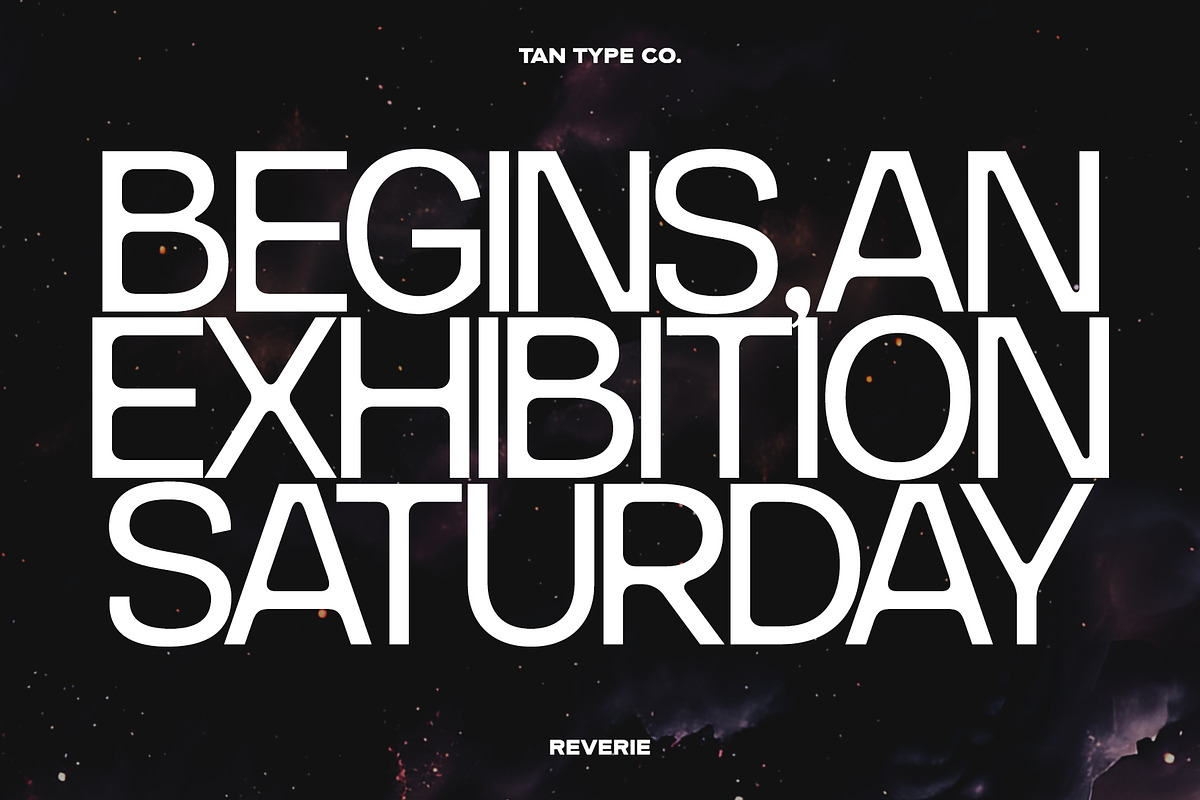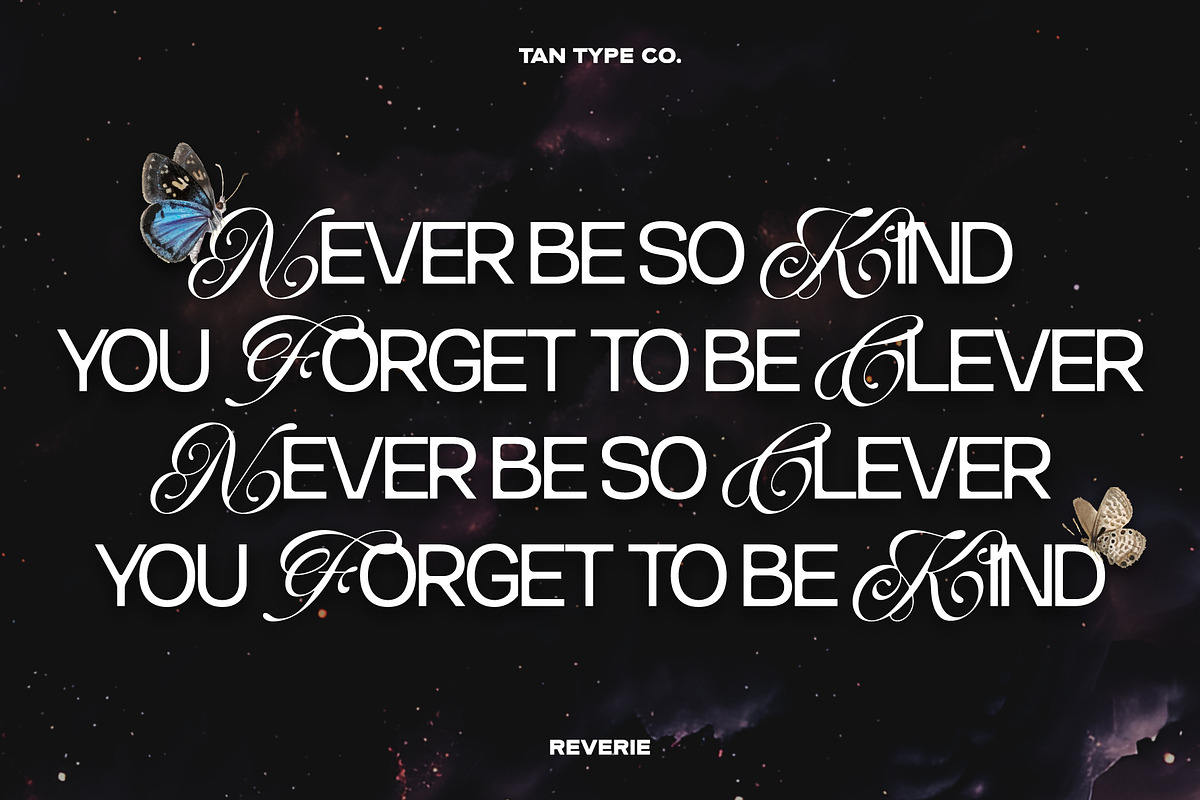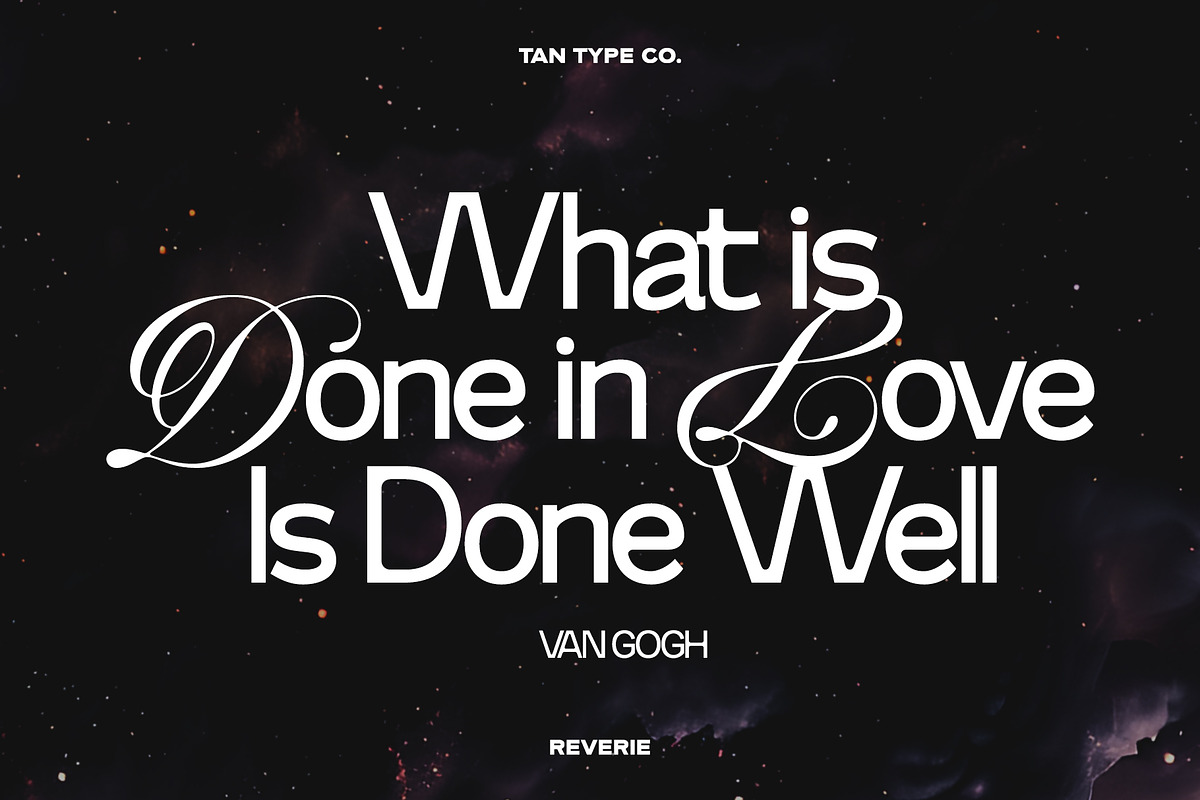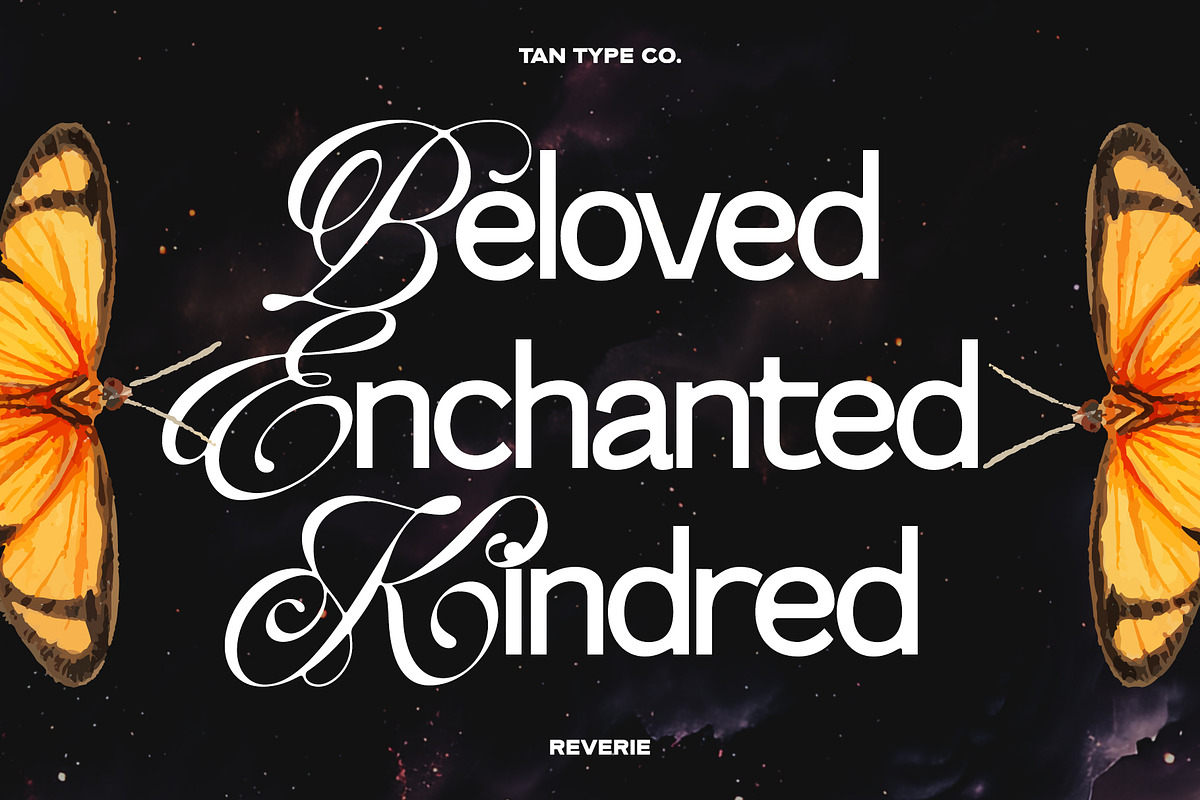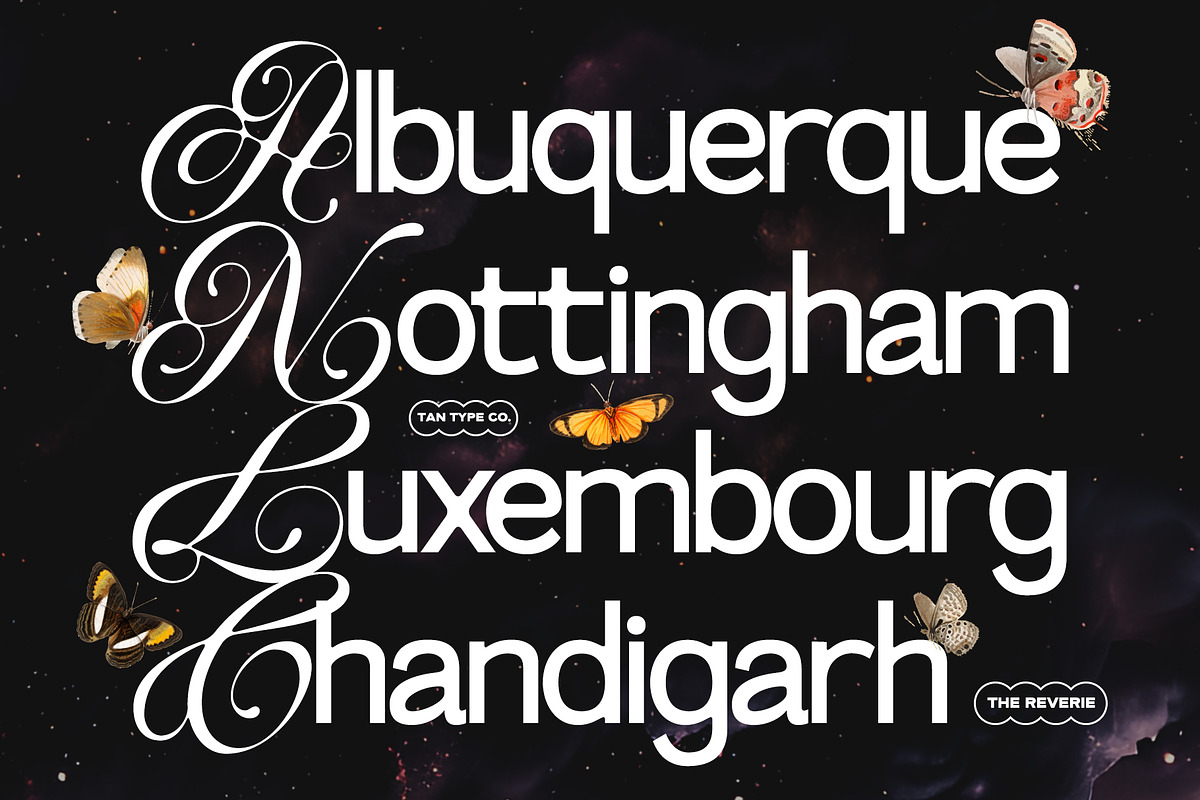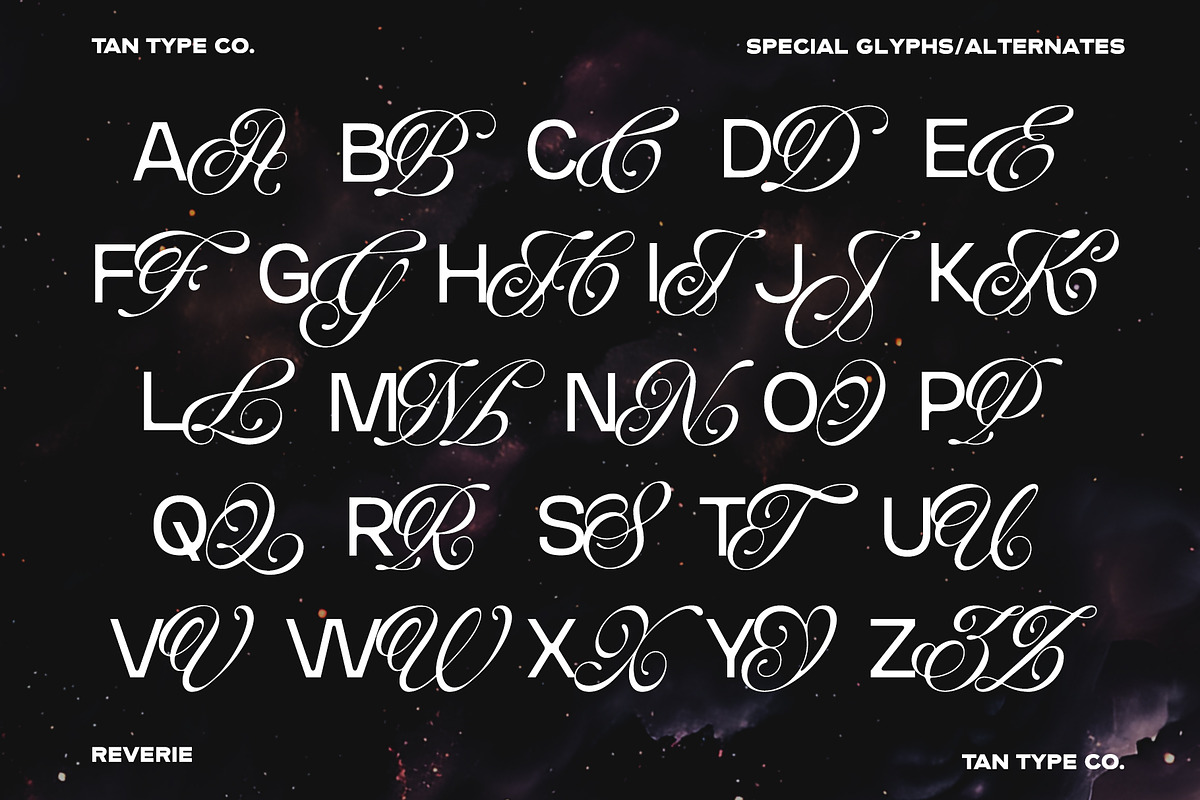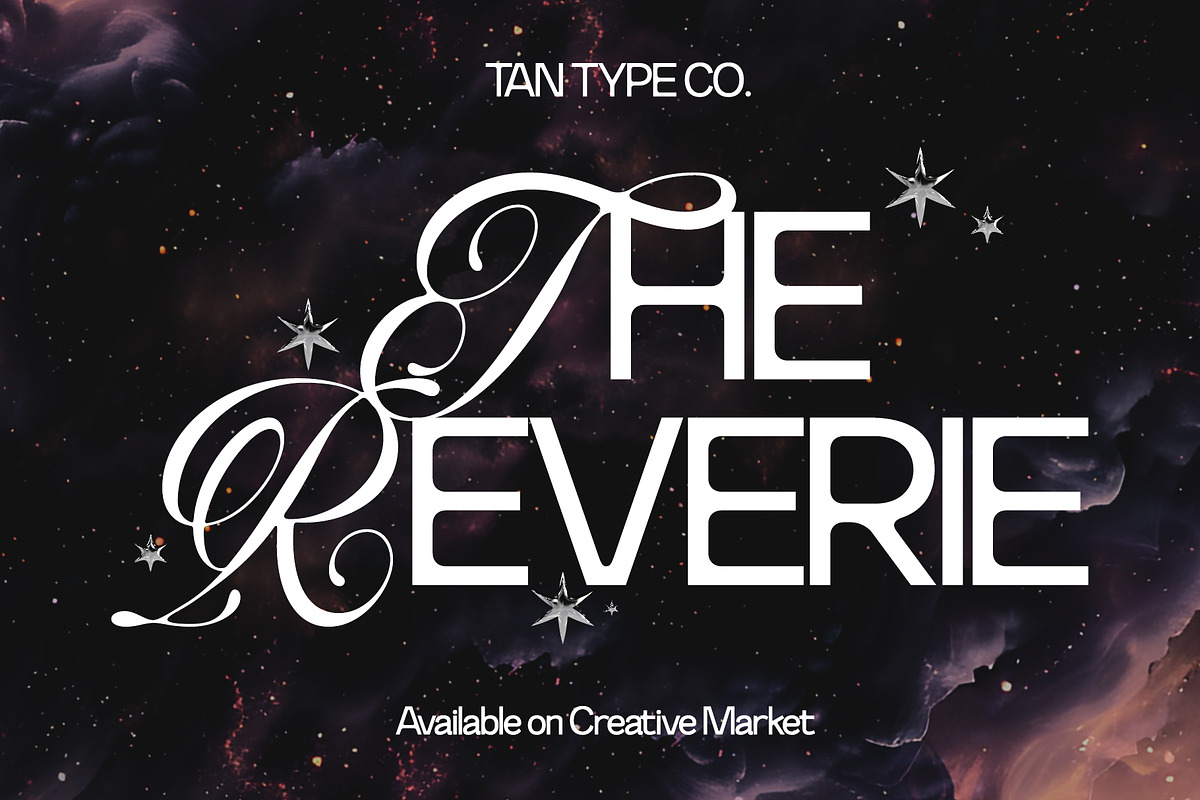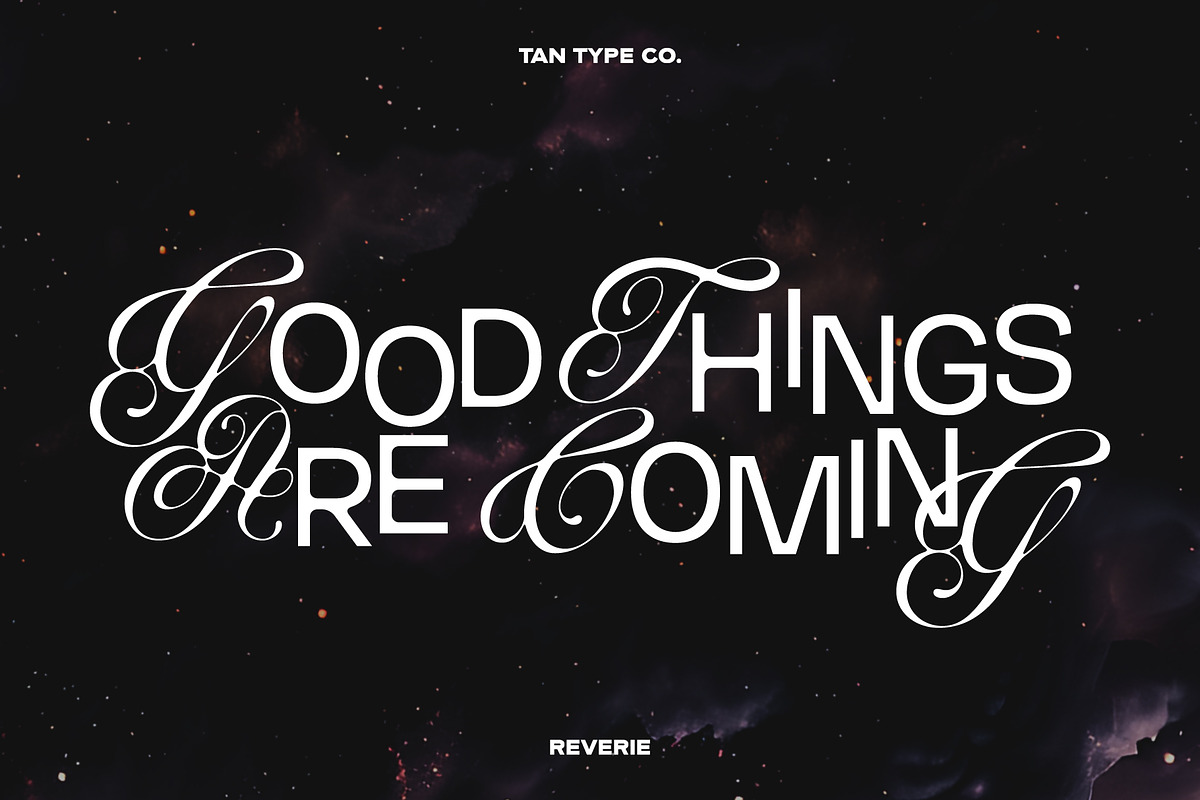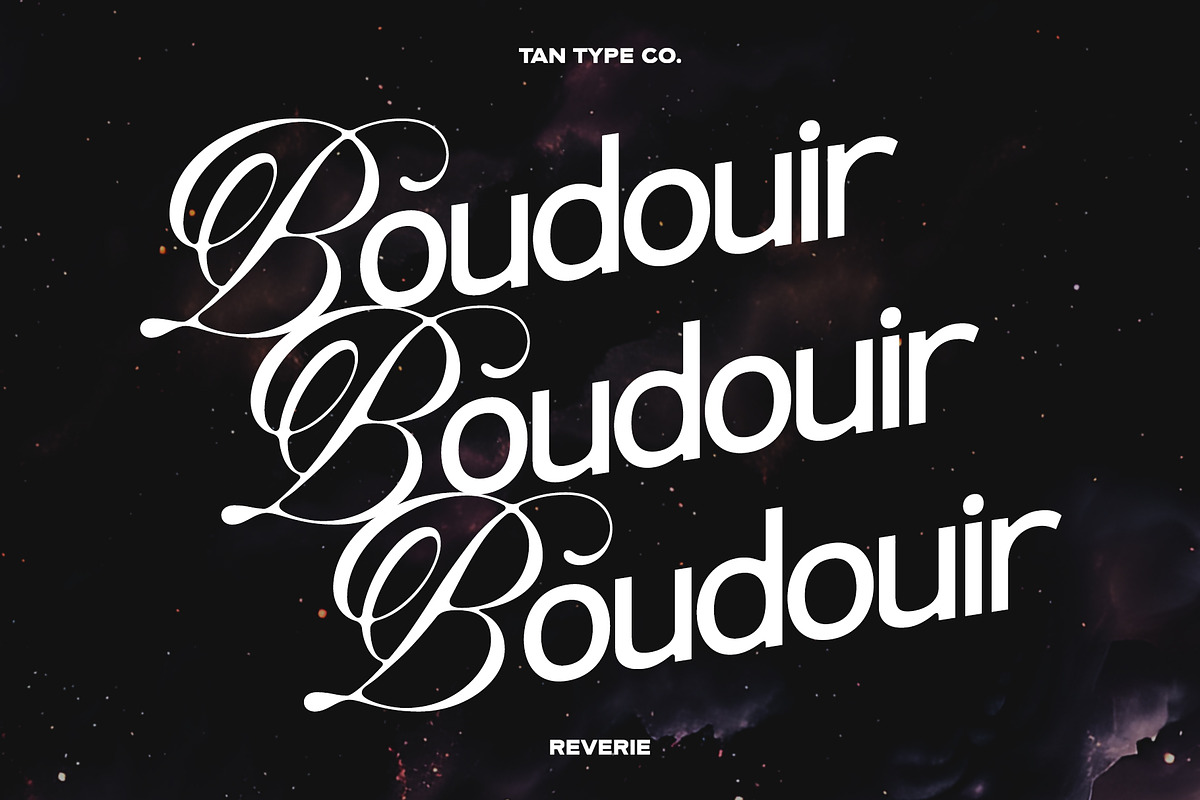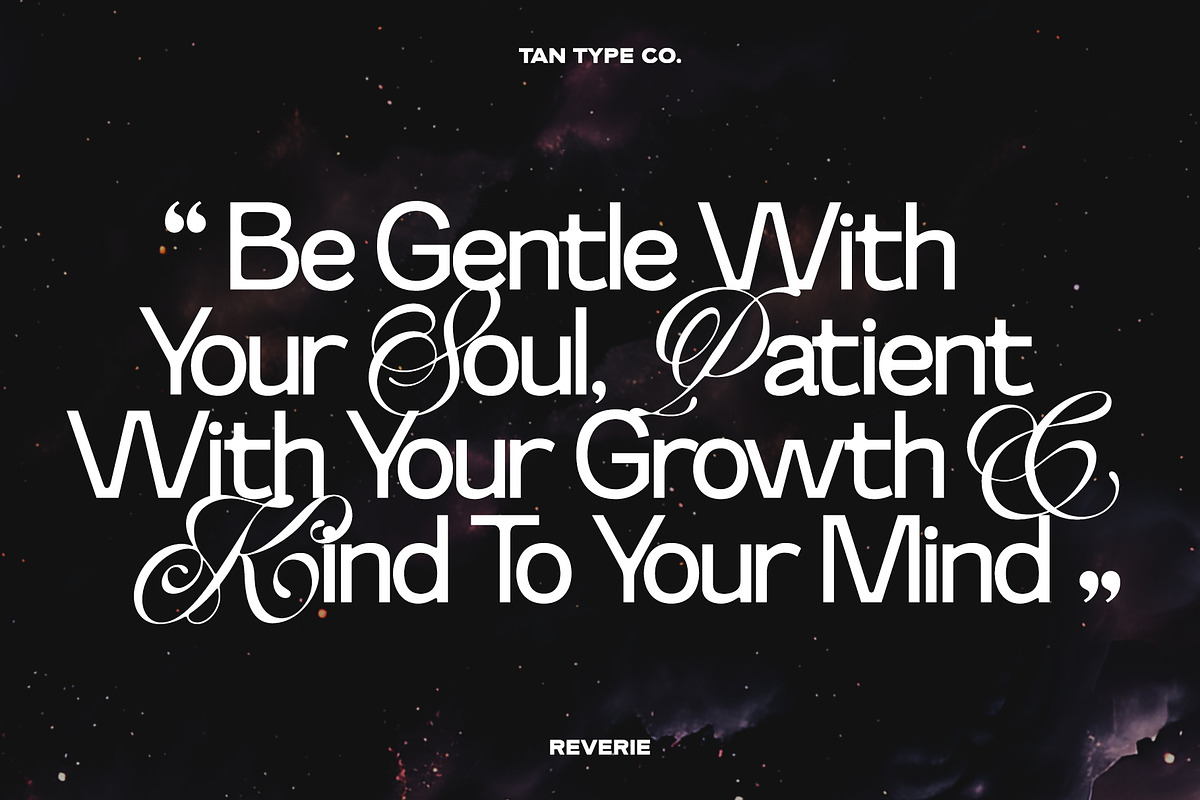
TAN-THE REVERIE
TAN–THE REVERIE is a clean modern sans serif with a distinctive twist — elegant Script uppercase letters that bring graceful contrast to its minimal foundation. It blends contemporary simplicity with classic refinement, creating a look that feels both timeless and fresh. Subtle yet expressive, THE REVERIE is designed for branding and creative projects that need to stay polished while still making a stylish statement.